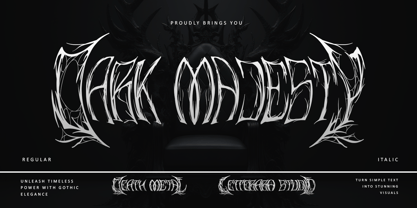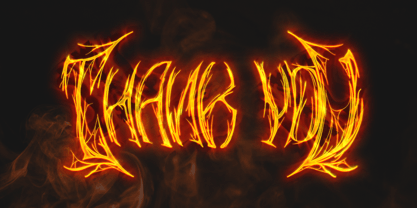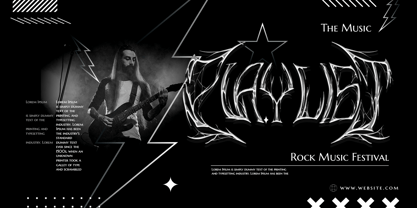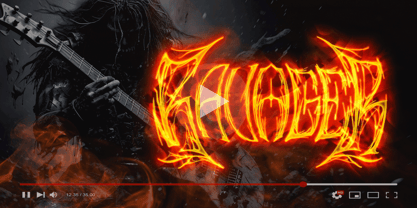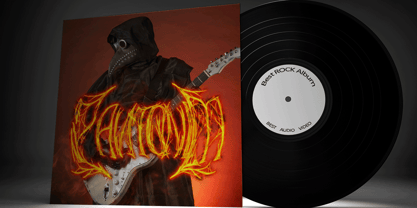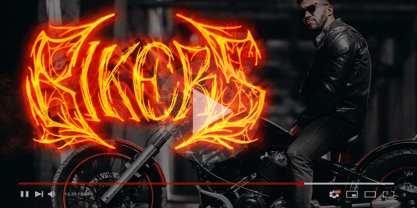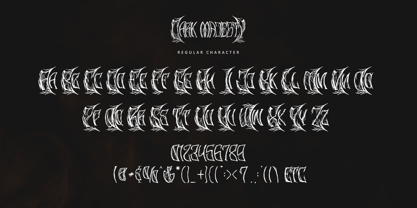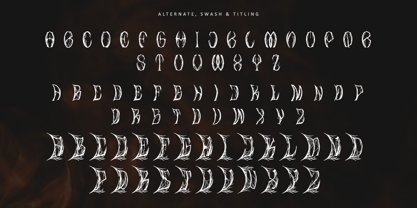
Dark Majesty
by Letterara
The Dark Majesty Font Family was designed by Thomas Aradea and published by Letterara. Dark Majesty contains 2 styles and family package options. More about this family
Enter the foreboding domain of Dark Majesty, a death metal blackletter font forged in the fires of raw power and gothic elegance. This font channels unrelenting intensity with its razor-sharp edges, dramatic strokes, and intricate detailing, exuding an aura of darkness and dominance. Perfect for album covers, band merchandise, striking logos, movie titles, and posters, Dark Majesty demands attention and amplifies the primal energy of your designs. Whether you’re creating for the stage, the screen, or the page, let Dark Majesty infuse your work with an unyielding force that leaves a lasting impression.
Designers: Thomas Aradea
Foundry: Letterara